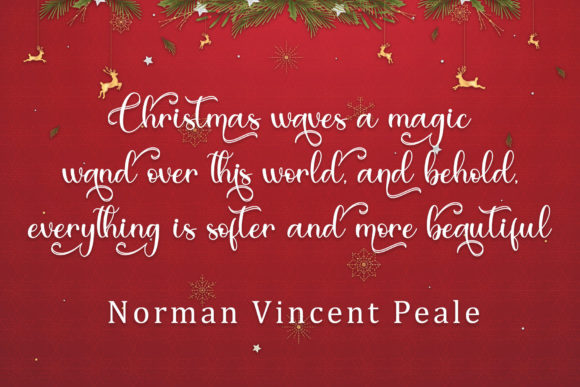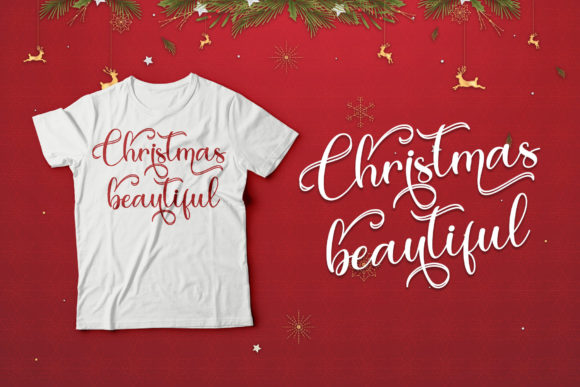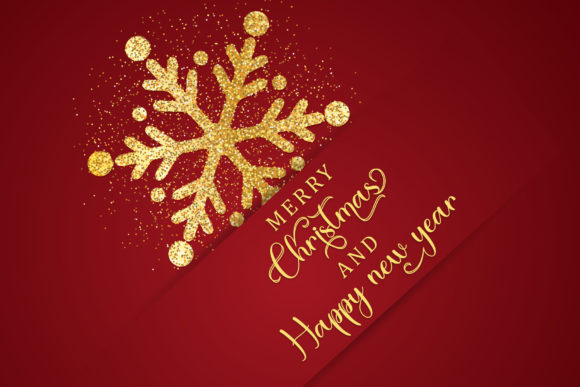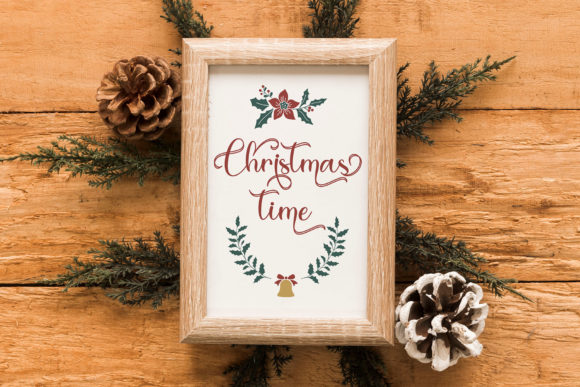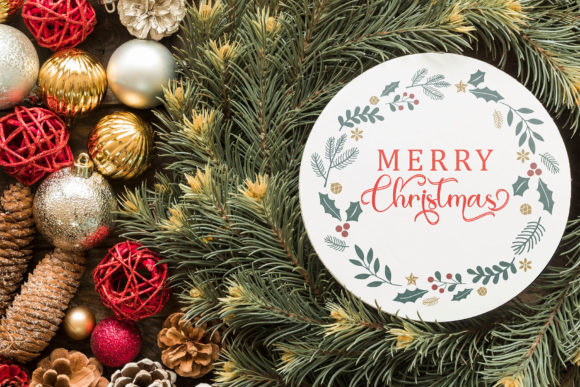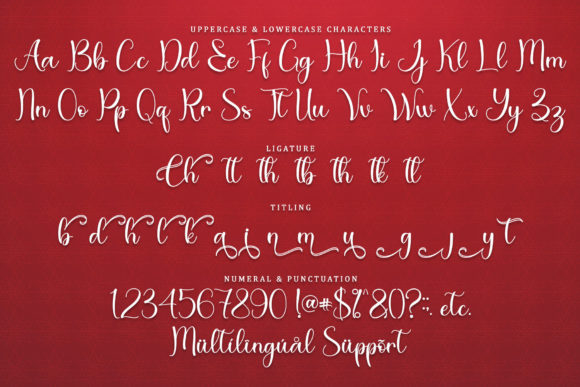
The Dream Christmas Font: A Holiday Designer’s Dream Come True
It’s that time of the year again – the season of joy, giving, and of course, designing. As a designer, I know how crucial it is to find the perfect font for your holiday project. I recall working on a Christmas card design last year, struggling to find a font that captured the essence of the season. My client wanted something elegant, yet playful, and I was on a mission to deliver. That’s when I stumbled upon the Dream Christmas font – a stylish and incredibly elegant script font that exceeded my expectations.
An Honest Review of Dream Christmas Font
What I Love About Dream Christmas Font
- ✨ Elegant and stylish design that’s perfect for holiday projects
- 🎉 Highly versatile and can be used for various design projects, from invitations to social media graphics
While the Dream Christmas font is an excellent choice for holiday designs, there are a few things to keep in mind:
- ⚠️ Some users may find the font a bit too ornate for certain projects
- 🤔 Limited availability of language support, so it’s essential to check compatibility before use
The Story Behind Dream Christmas Font
The Dream Christmas font was created with the intention of capturing the magic and wonder of the holiday season. The designer aimed to create a font that would be both elegant and playful, making it perfect for a wide range of holiday projects. The result is a beautiful and versatile font that’s sure to become a favorite among designers.
| Font Name | Dream Christmas Font |
| Author | Sakha Design |